+23 Fonts For Grocery Store References
+23 Fonts For Grocery Store References. Here is our recommendation of the 20 best fonts you can use for your ecommerce business. Every font is free to download!
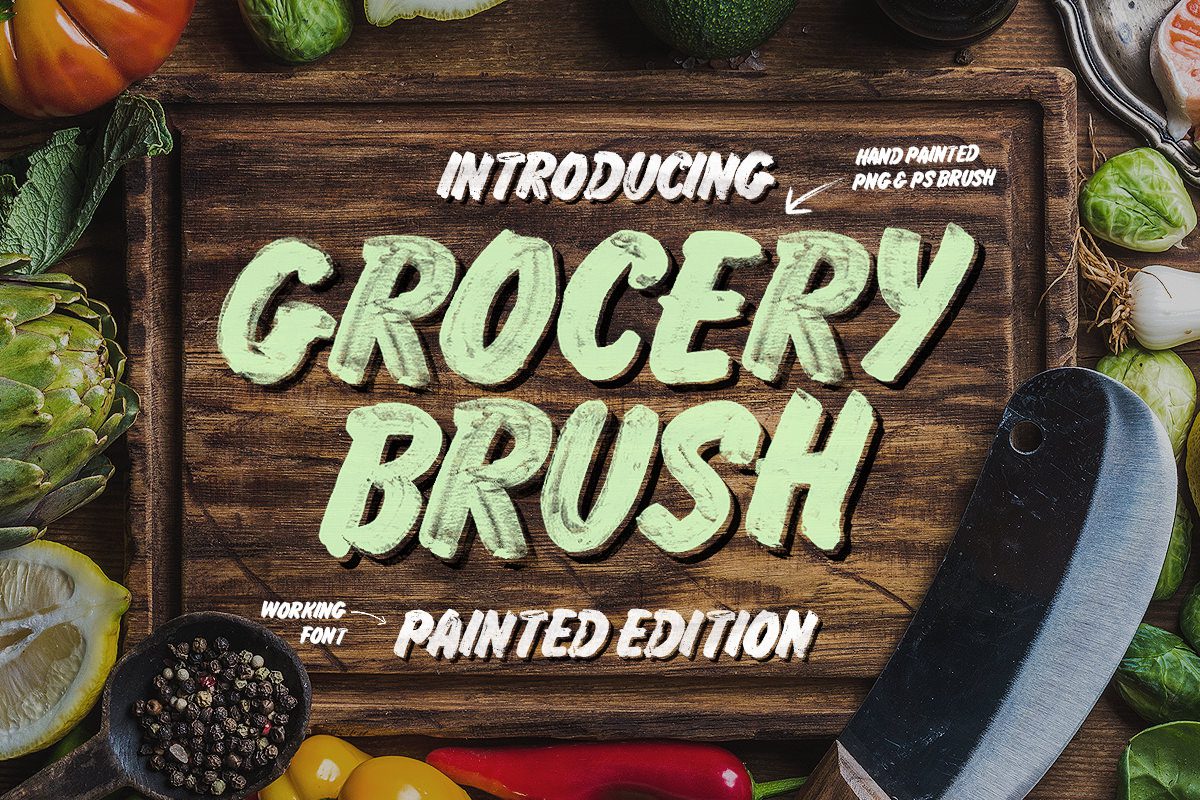
Although the typography is traditional, the basic elements are great. Uses tagged with “supermarkets” show: Click to find the best 371 free fonts in the food style.
Tims Grocery Store Download Font.
Here Is Our Recommendation Of The 20 Best Fonts You Can Use For Your Ecommerce Business.
Every font is free to download! The handwritten script font is elegant and charming, and pairs well with the sans serif version of it to create a unique font duo. This font collection comprises of a.